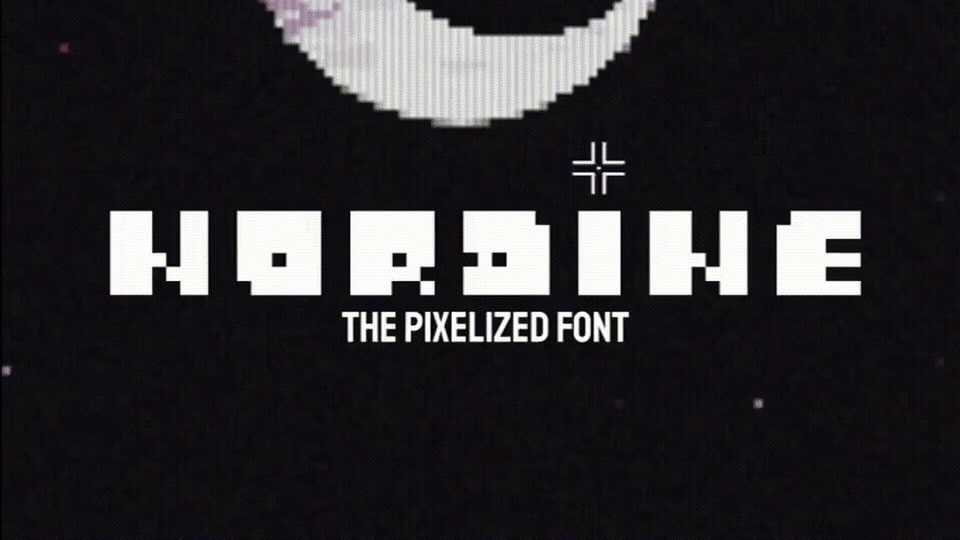
Download Nordine font, a typographic homage to classic Point and Click adventure games. Nordine font is ideal for creating a simple and nostalgic atmosphere.
Designer: Liam Moniez